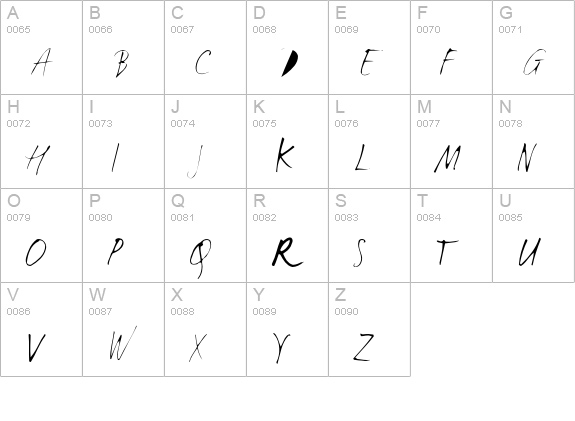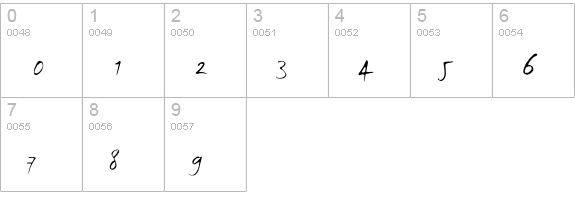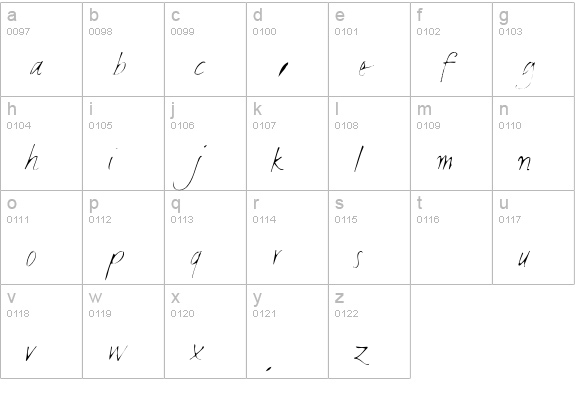
LucasHandFeetUltraLight Font Details
Introducing LucasHandFeetUltraLight font - a whimsical and playful typeface that exudes a sense of creativity and charm. This unique font features hand-drawn elements and a delicate touch, making it perfect for adding a personal and artistic flair to your projects. LucasHandFeetUltraLight font is ideal for a variety of design applications, from branding and packaging to social media graphics and invitations. Its ultra-light weight gives it a delicate and airy appearance, making it perfect for adding a touch of elegance to your designs. The best part? LucasHandFeetUltraLight font is completely free to download at FontsMarket.com. So go ahead and give your designs a fresh and unique look with this charming and whimsical font today!